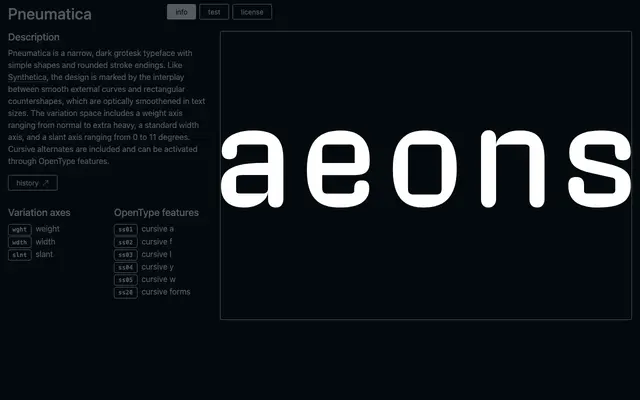
Pneumatica
A narrow, dark grotesque with rounded stroke endings and variable axes for weight, width and slant, plus cursive OpenType alternates.
Pneumatica pairs smooth external curves with rectangular countershapes that optically soften at text sizes, a formal tension shared with Hipertipo's Synthetica. The variable design runs a weight axis from normal to extra heavy, a width axis, and a slant axis up to 11 degrees. Cursive alternates for individual glyphs such as a, f, l, w and y can be switched on via OpenType stylistic sets.
A narrow, dark grotesque with rounded stroke endings and rectangular countershapes, placing it firmly in the grotesque sans tradition with a contemporary variable-font approach.